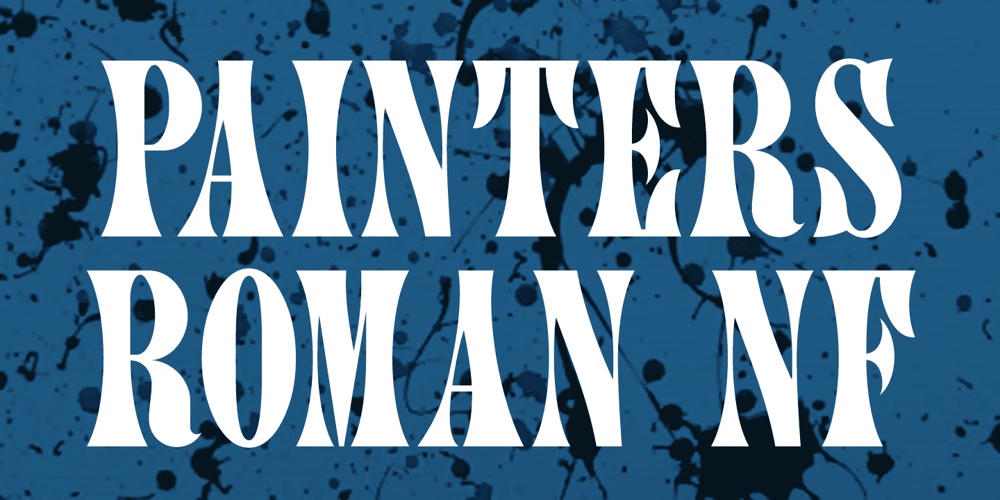
Painters Roman NF
Painters Roman NF Font Family was designed by Nick Curtis and published by Nick’s Fonts. Painters Roman NF contains 1 styles and family package options. It is what it says: a classic woodtype face by the same name from Vanderburg and Wells’ 1878 specimen book. What it lacks in refinement, it makes up for in exuberance. Both versions support the Latin 1252, Central European 1250, Turkish 1254 and Baltic 1257 codepages.